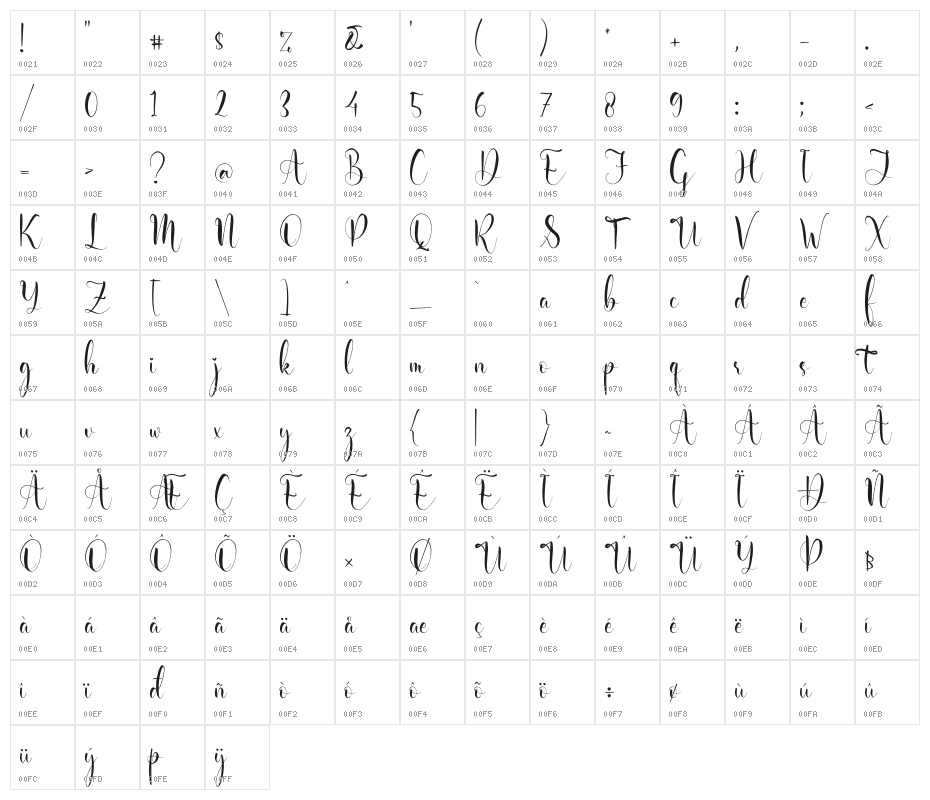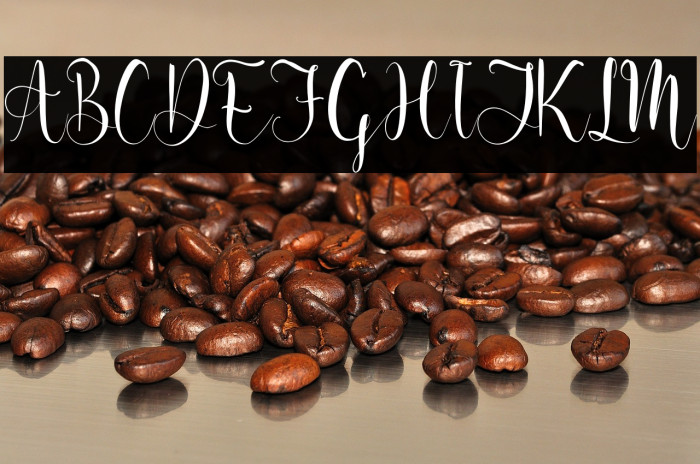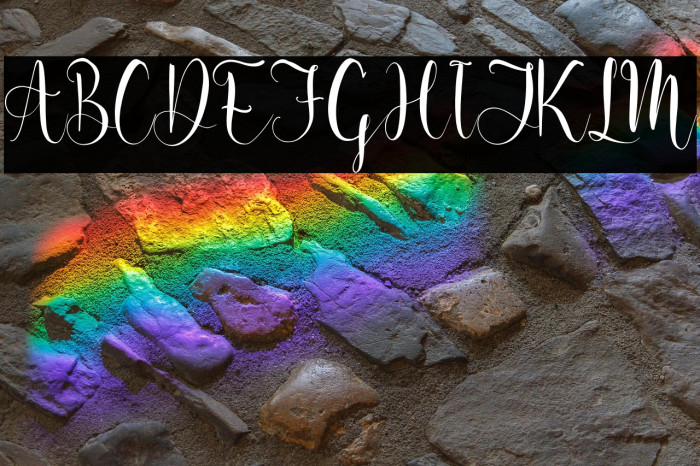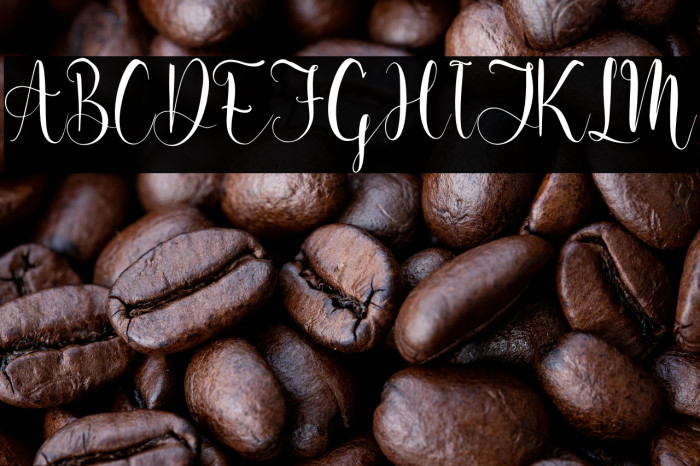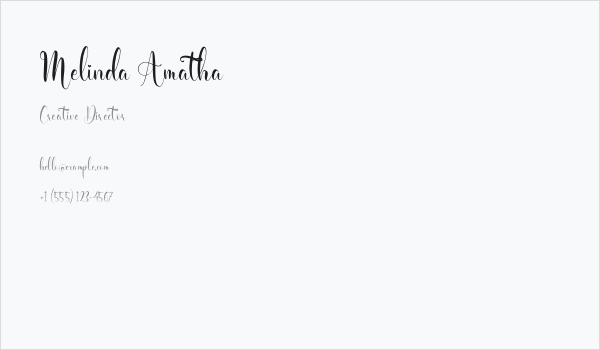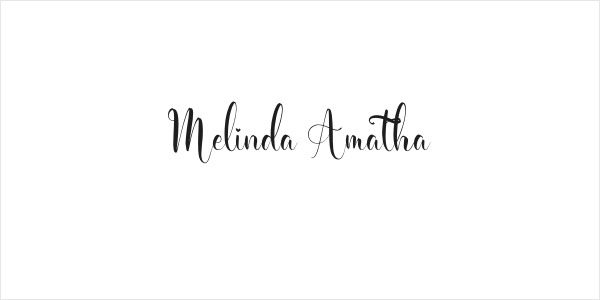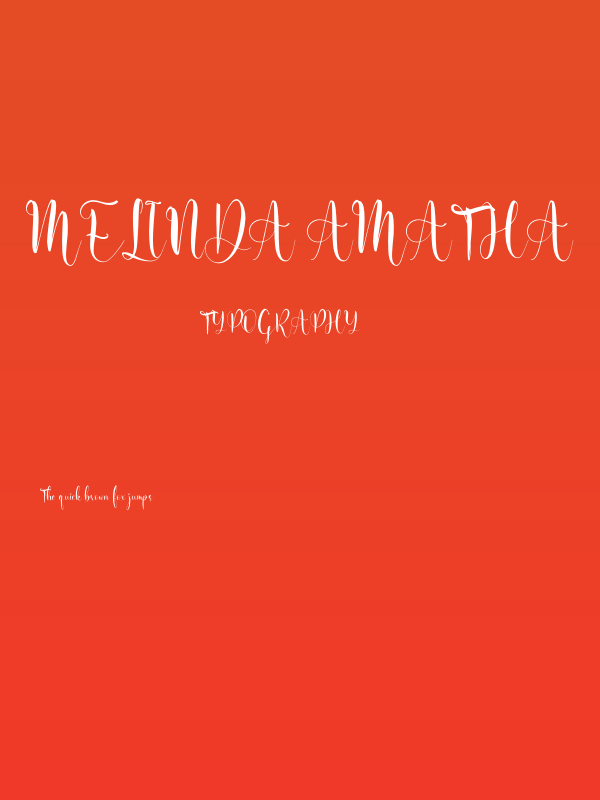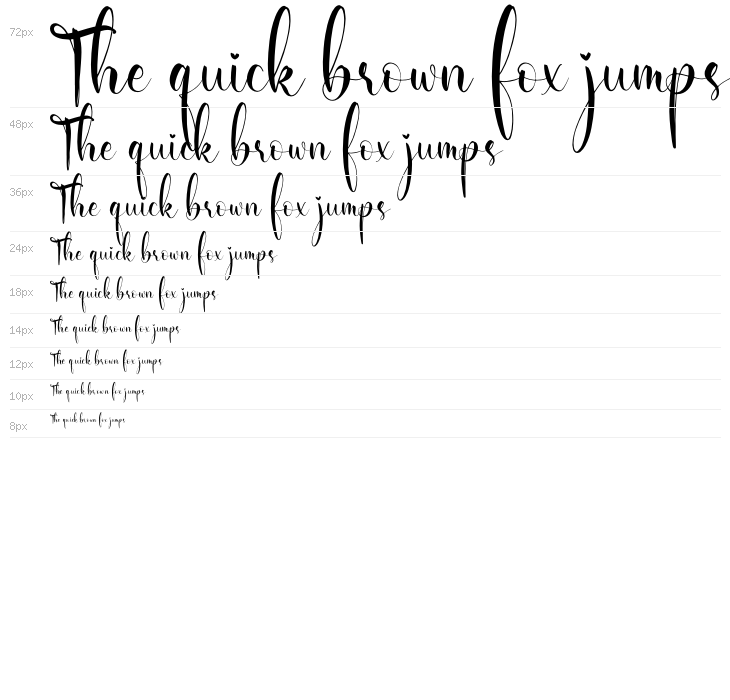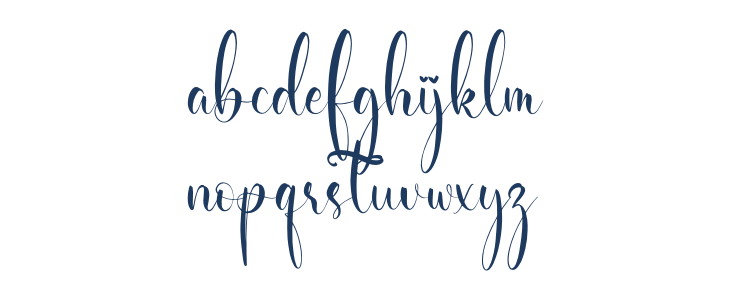
Melinda Amatha Font
Melinda Amatha Description
This font features an elegant and flowing script style, characterized by its graceful, sweeping curves and loops. The uppercase letters are particularly ornate, with flourishes that extend beyond the baseline and cap height, creating a sense of movement and fluidity. The lowercase letters maintain a consistent style, with some letters featuring unique, decorative elements such as loops and swashes. The numerals are designed to match the overall aesthetic, with a similar emphasis on curves and elegance. Special characters are included, maintaining the same decorative style, making this font suitable for a wide range of creative applications.
| Proposed Projects | Ideal for wedding invitations, greeting cards, branding, and logo design where a touch of elegance and sophistication is desired. |